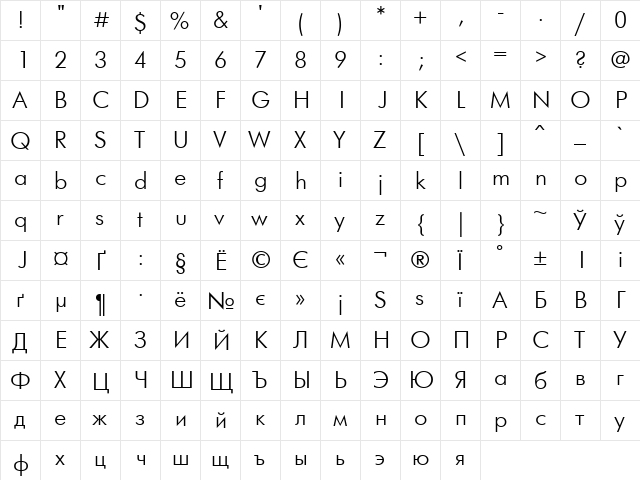
UkrainianFuturis Regular
UkrainianFuturis channels digital-age aesthetics through its sharp, structured letterforms — ideal for brands that want to signal innovation.
Pro Tip: Use UkrainianFuturis in combination with a neutral sans for body text. Let it define the brand voice in headlines while keeping reading comfortable elsewhere.